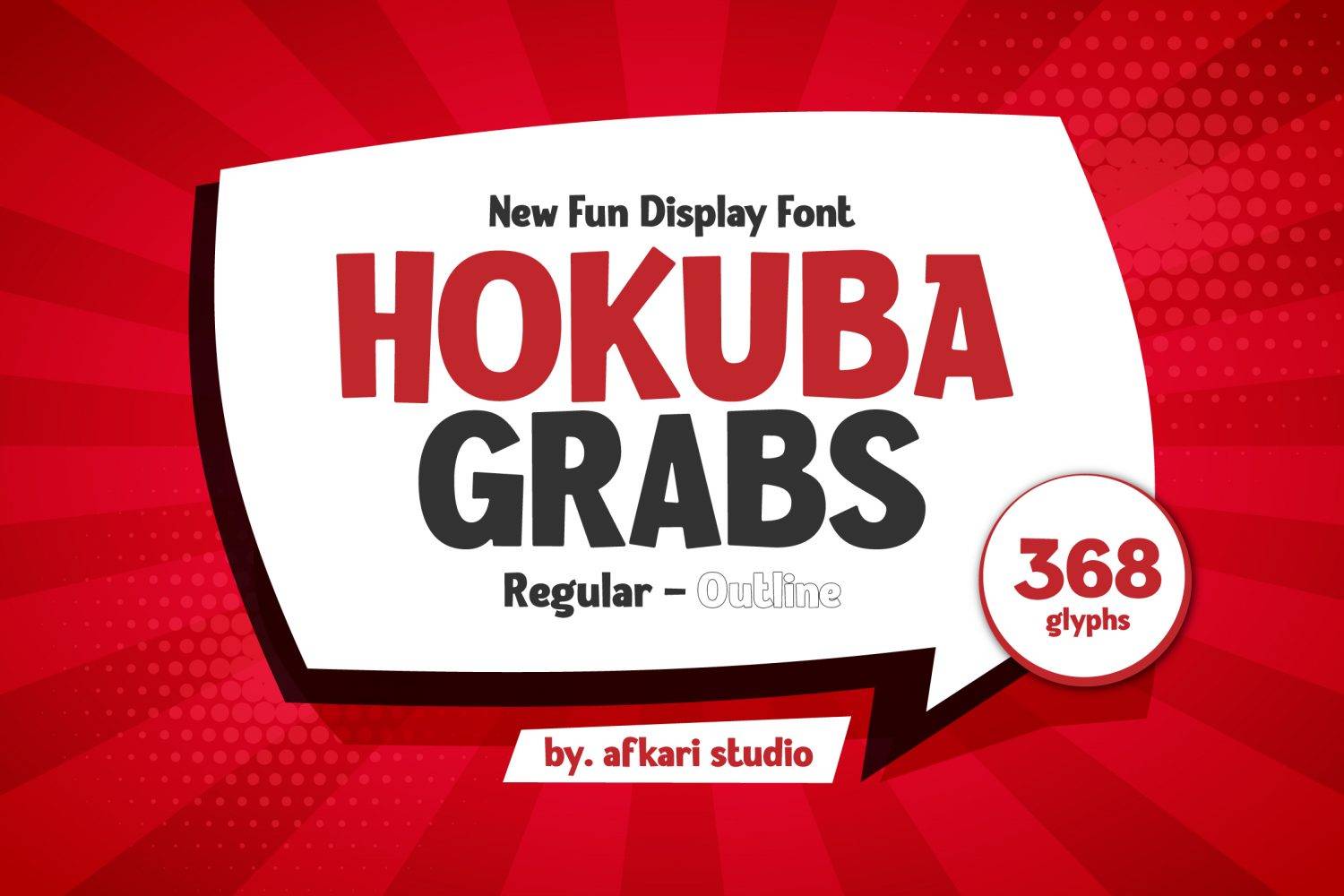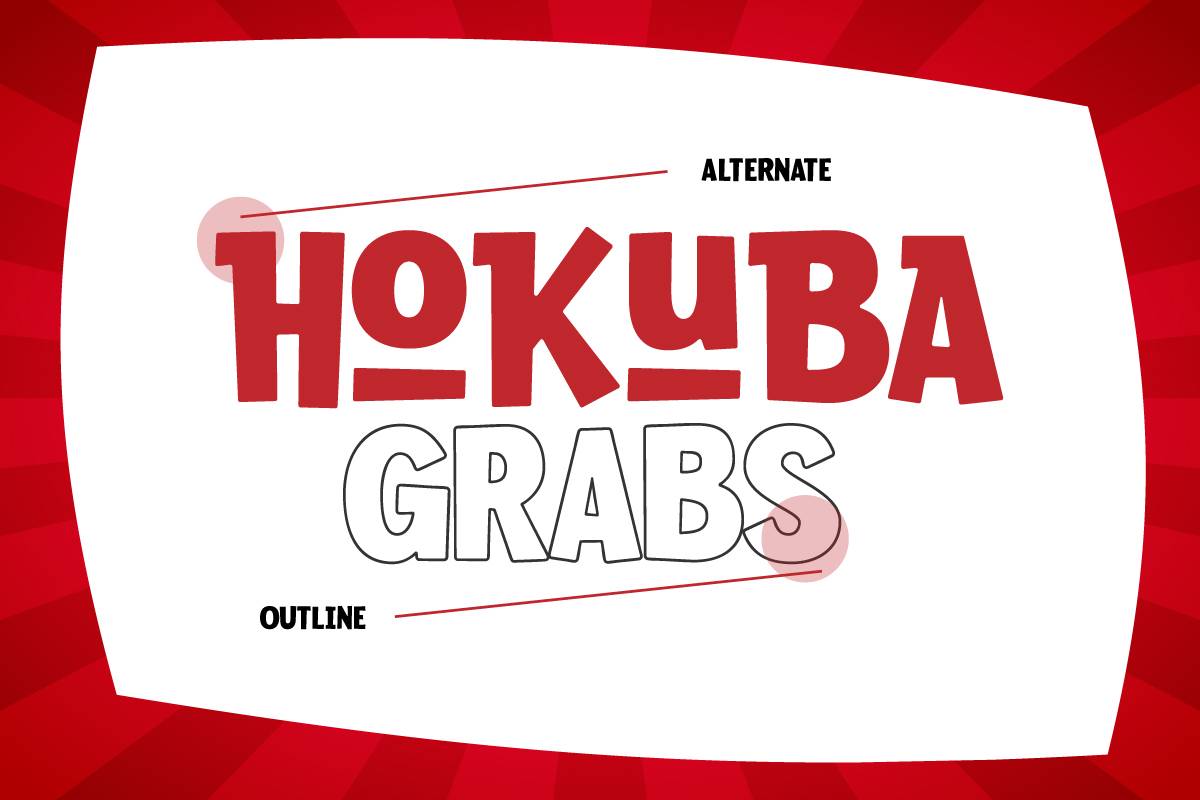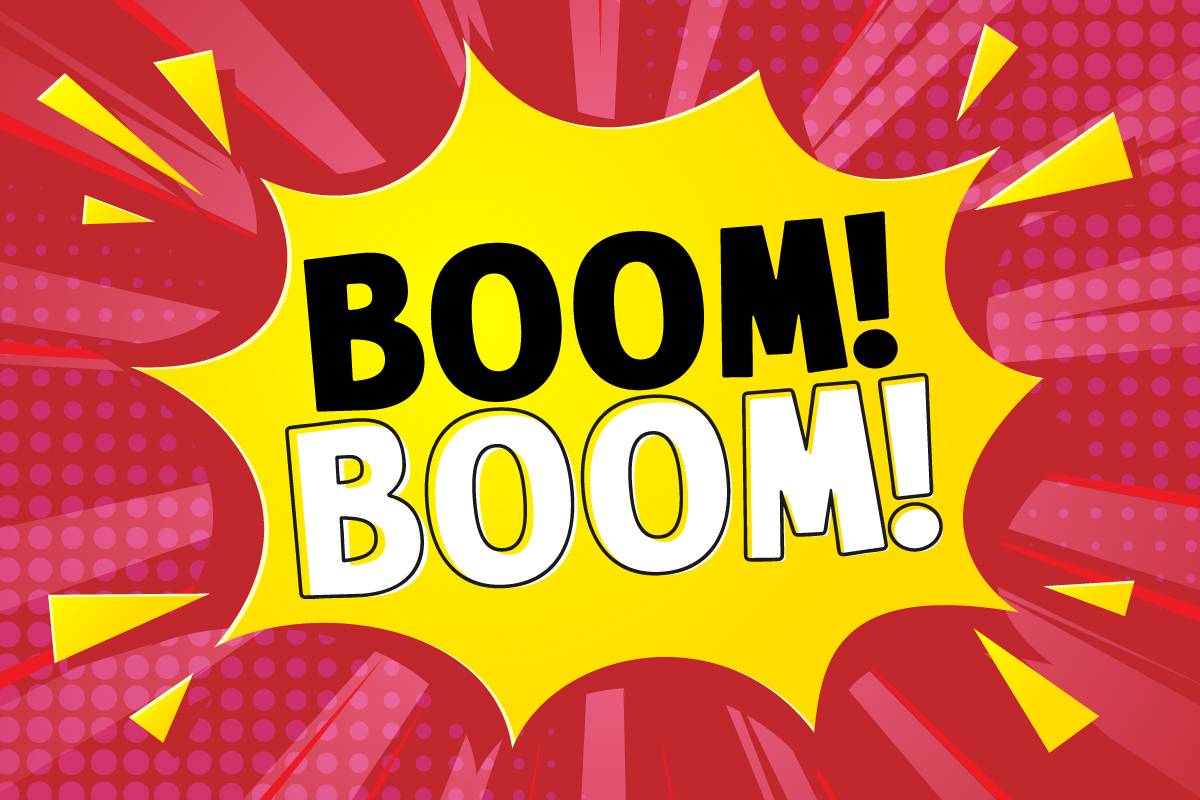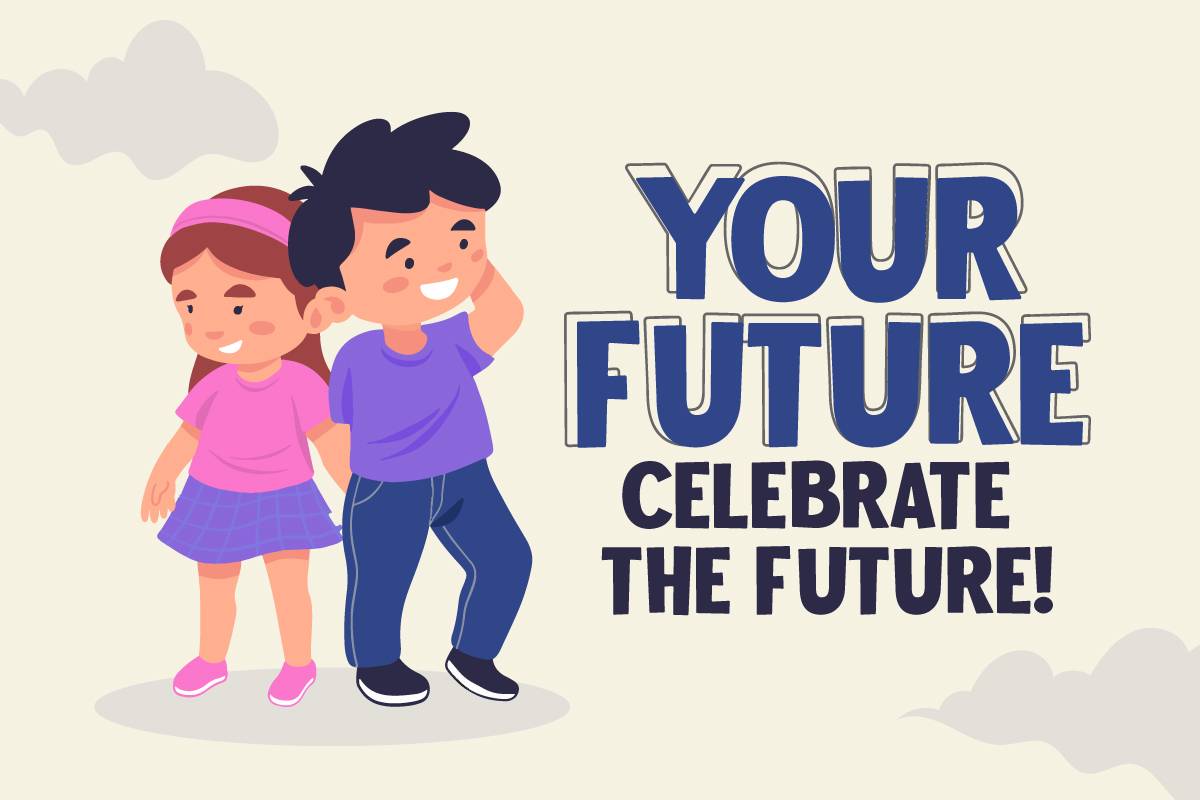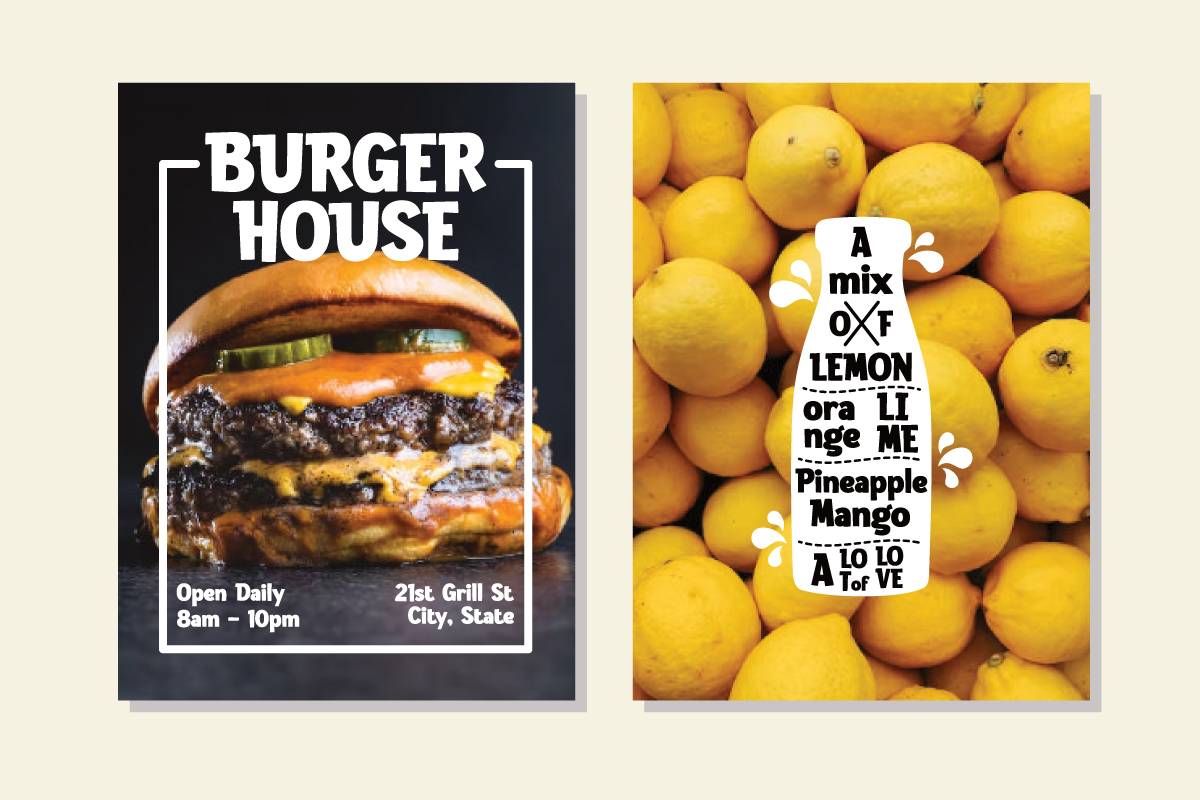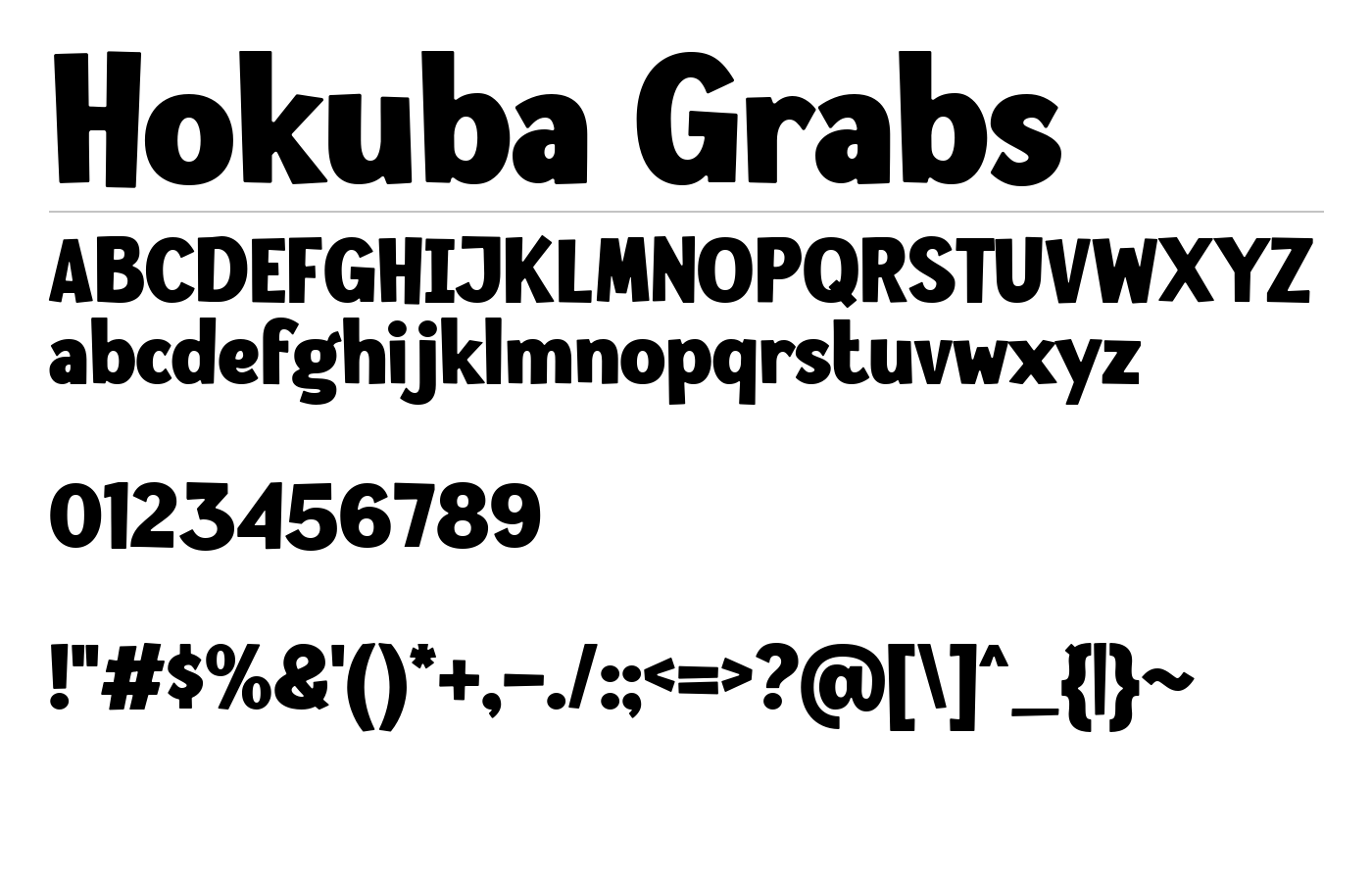
Hokuba Grabs is a bold and playful sans serif font with a strong, chunky presence and slightly irregular shapes that add a fun, informal character. Its wide letterforms, even stroke weight, and clear readability make it ideal for attention-grabbing headlines, logos, and designs aiming for a friendly, approachable vibe. This font works well in creative branding, children's materials, and casual editorial projects where personality and impact are key.
Hokuba Grabs Font
About Hokuba Grabs Font
| Font family | Hokuba Grabs Font |
| Release date | 2022-12-25 |
| Designer | Musthafa Kamal - Afkari Studio |